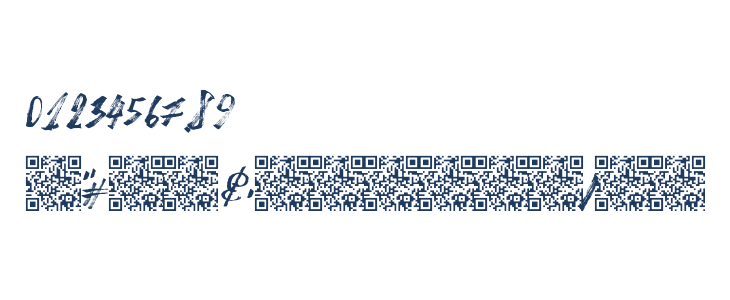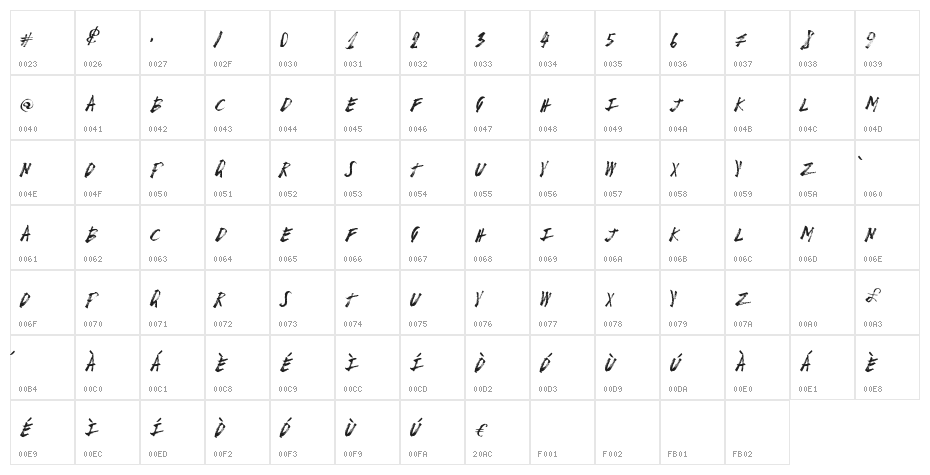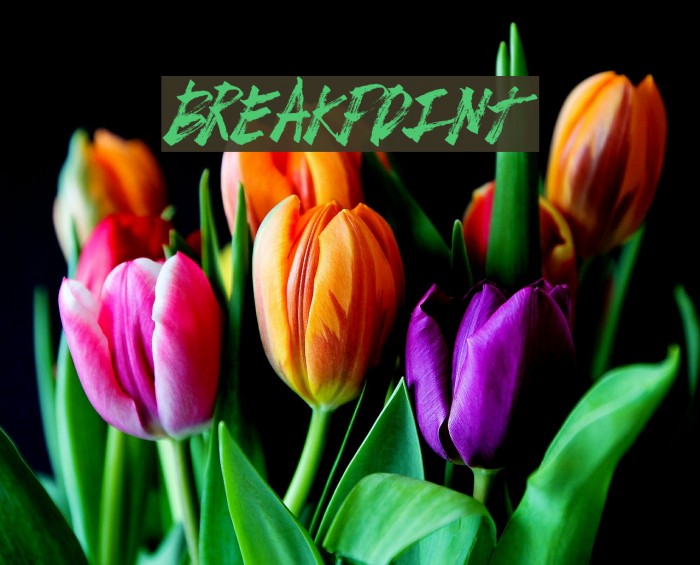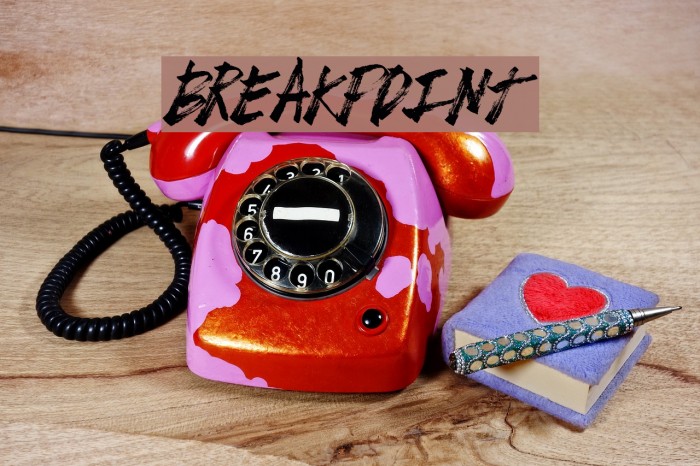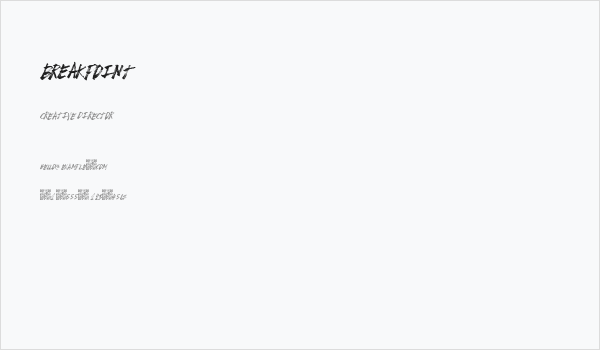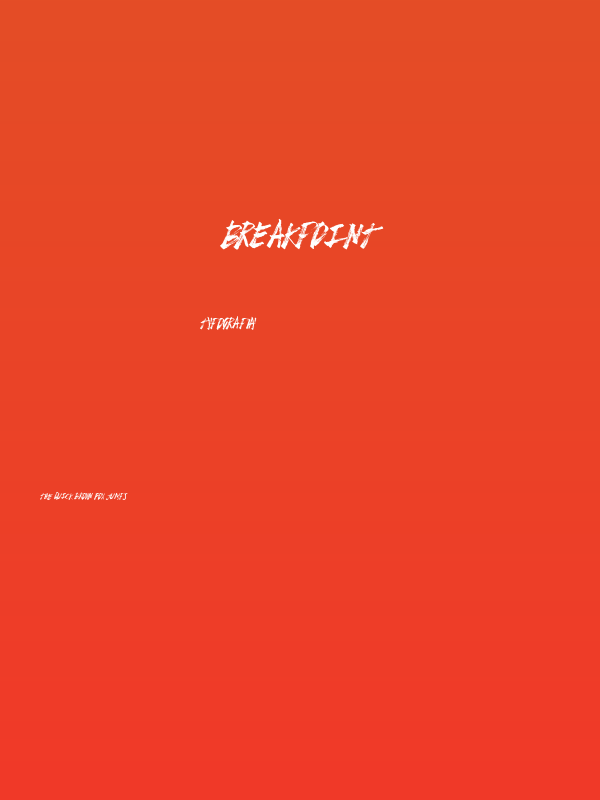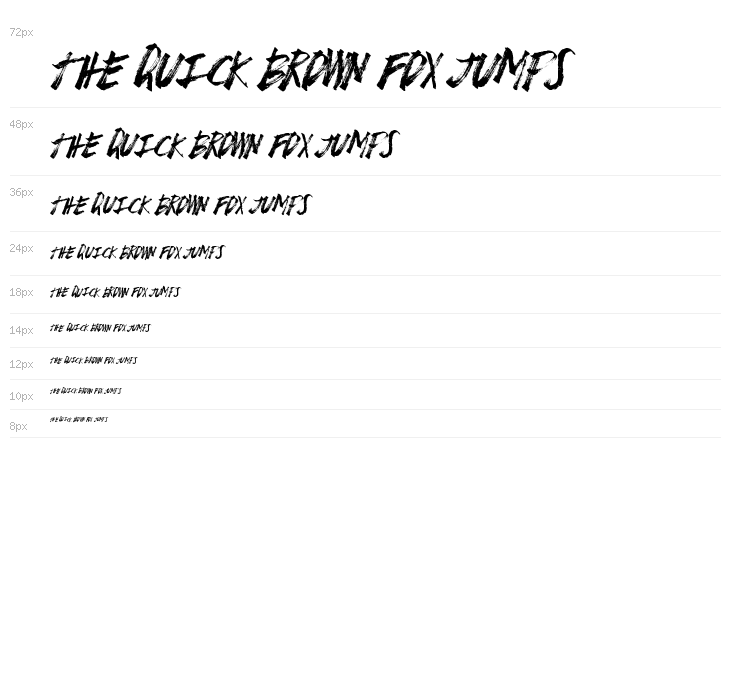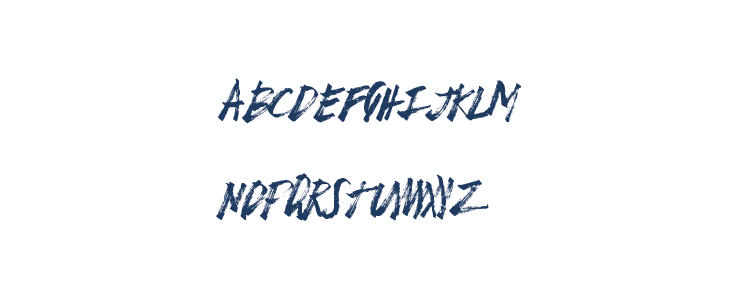
BreakPoint Font
BreakPoint Description
This font features a dynamic and energetic brush script style, characterized by its bold and expressive strokes. The letters are crafted with a rough, textured appearance, giving them a hand-painted look that exudes creativity and spontaneity. The uppercase and lowercase letters maintain a consistent style, with a slight slant that adds to the font's lively and informal feel. Numbers and special characters are also included, matching the overall aesthetic with their bold and artistic flair. This font is perfect for projects that require a personal touch or a sense of movement and energy.
| Use Case | Logos, Posters, Artistic projects |
| Proposed Projects | Ideal for branding, posters, artistic projects, and any design that benefits from a personal, energetic touch. |